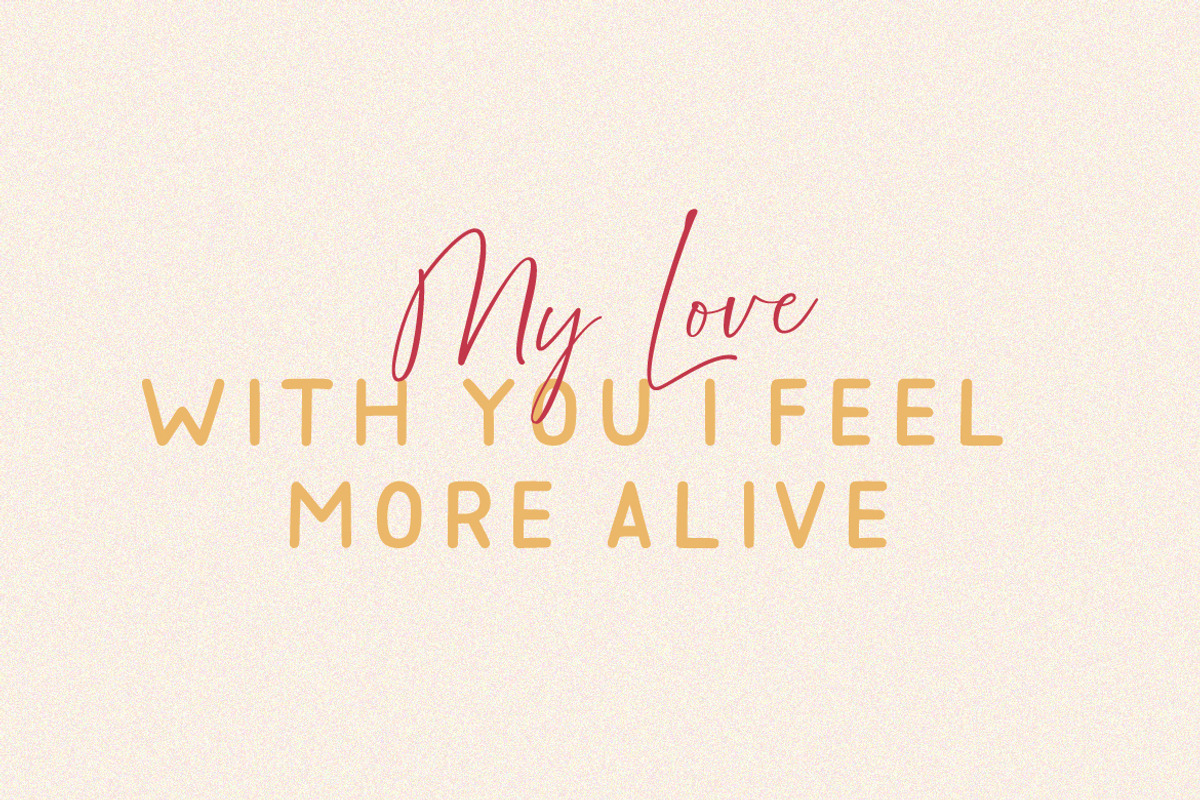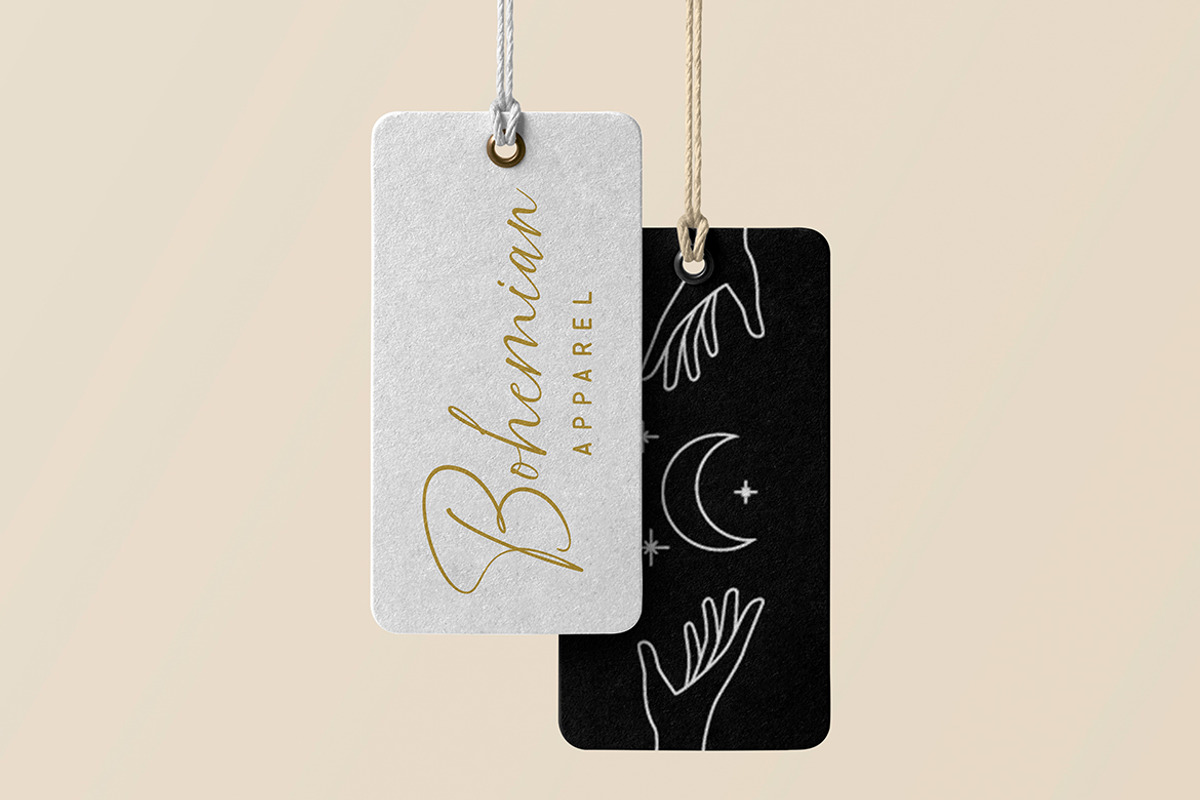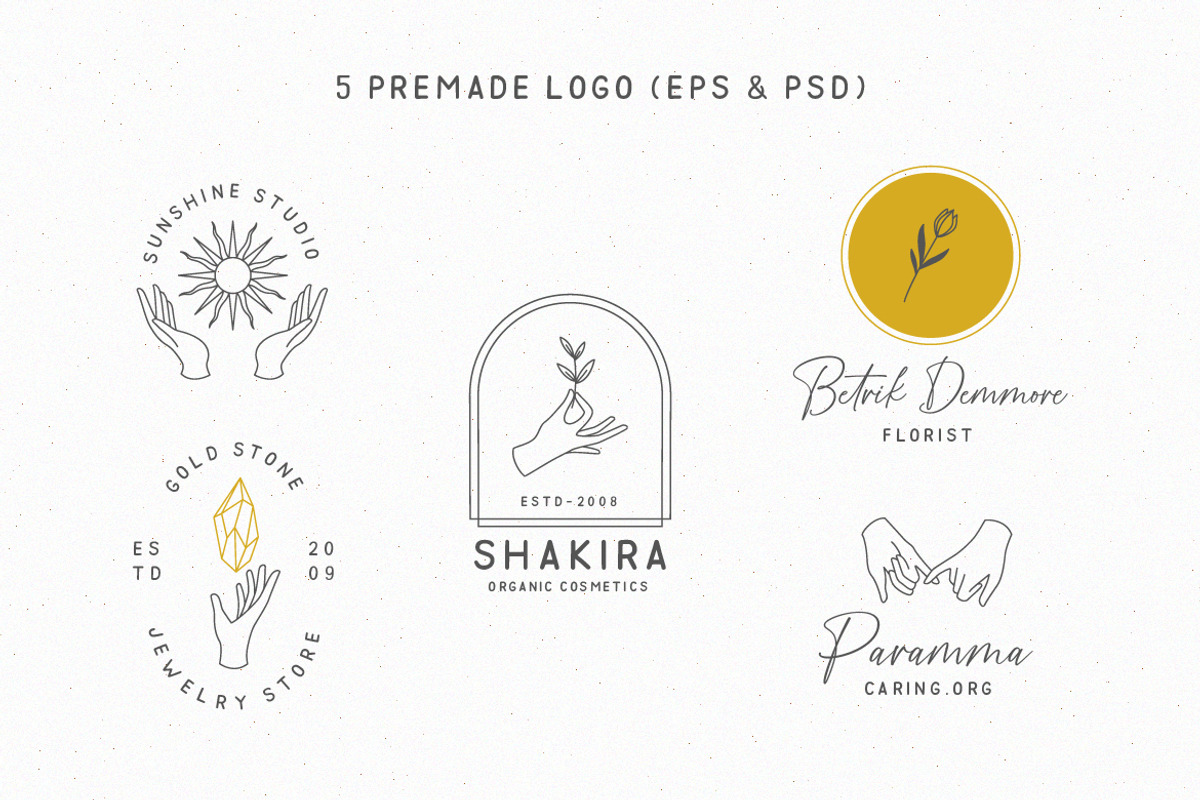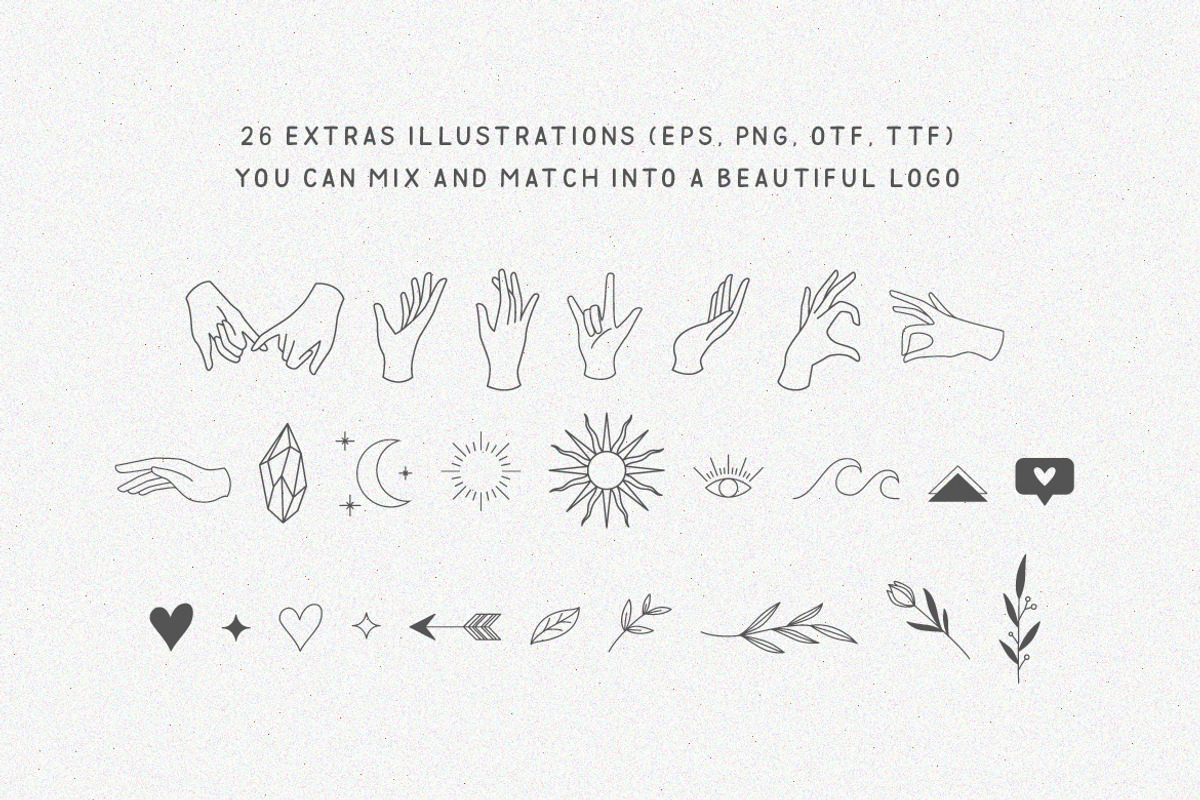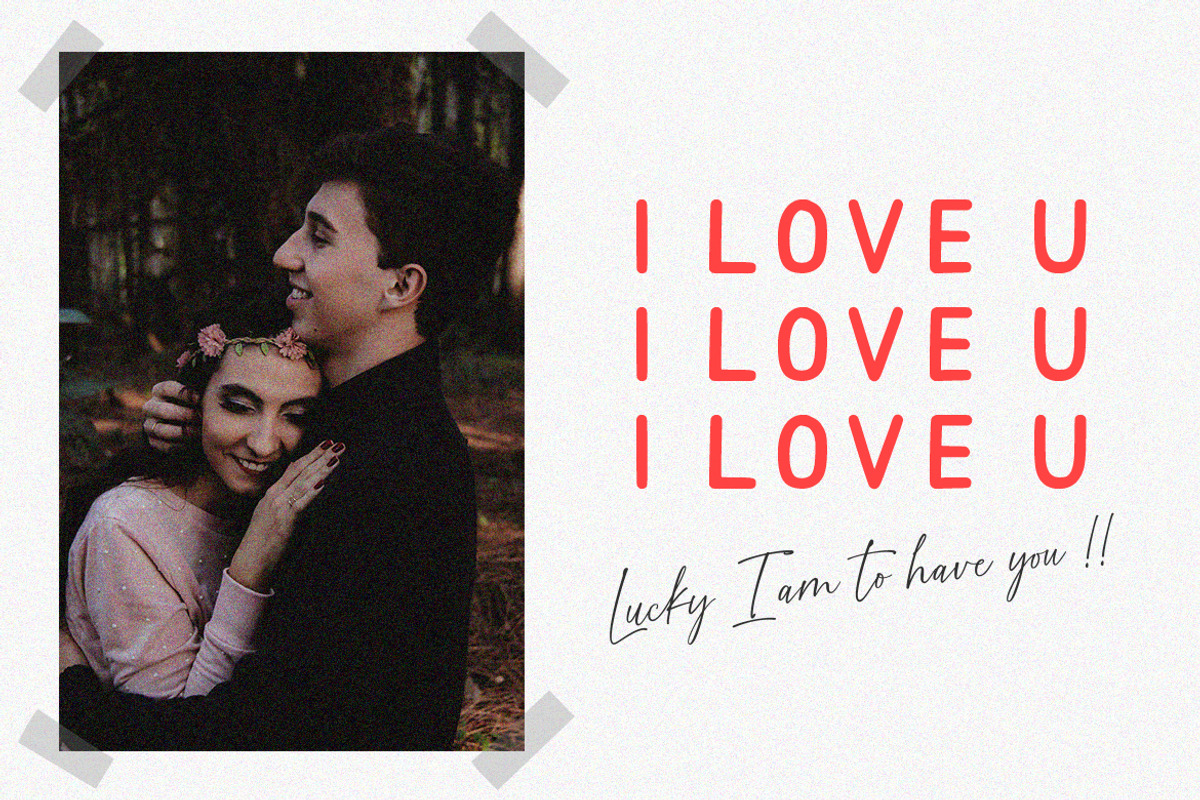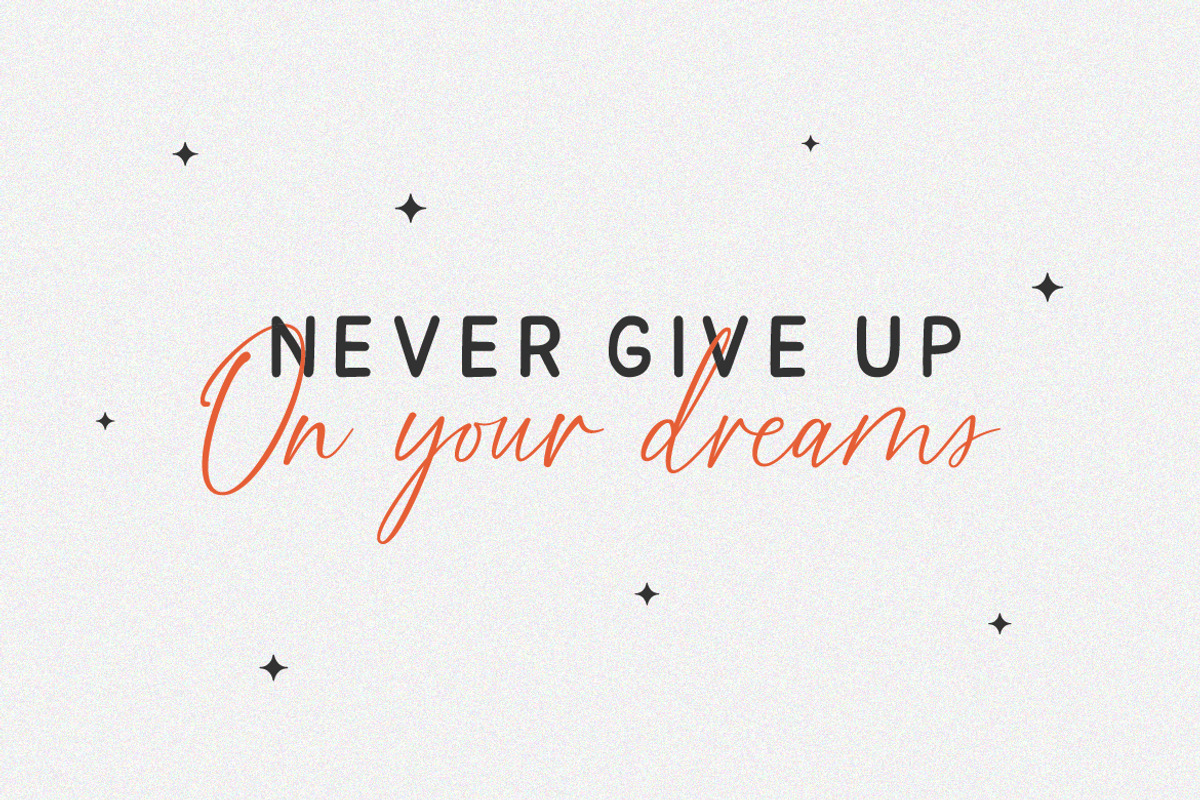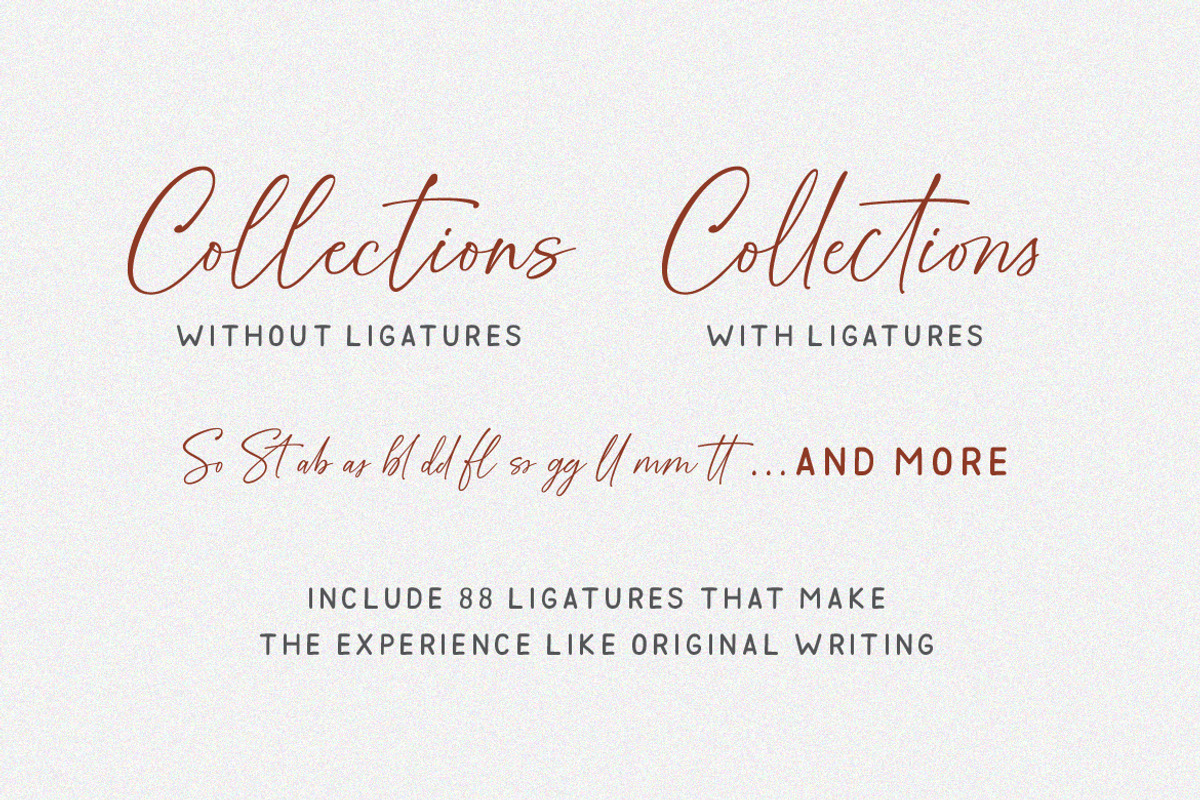
Golden Dream | Font Duo + Extras
Golden Dream is inspired by all those who are is reaching out a dream. typing with this font is a prayer that will make you more struggling and make you more confident that I can. Golden Dream is an interrelated font duo that makes it look beautiful harmoniously suitable for branding, logos, product packaging, labels, watermarks, quotes, posters & others. Additional 5 premade logos and extras that you can mix and match into a beautiful logo with interrelated letters that makes it very perfect.